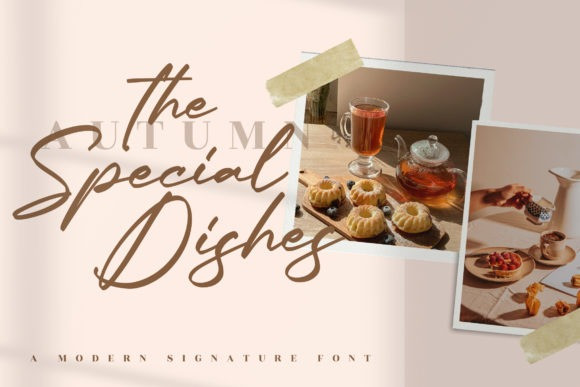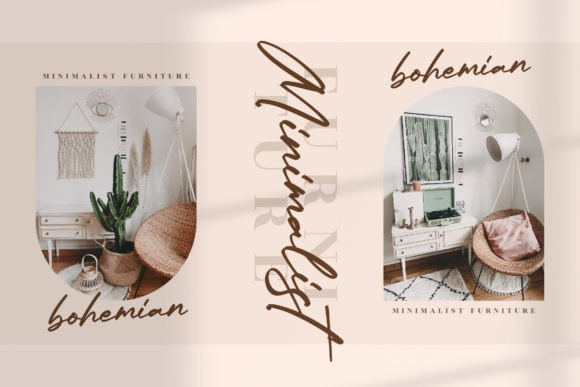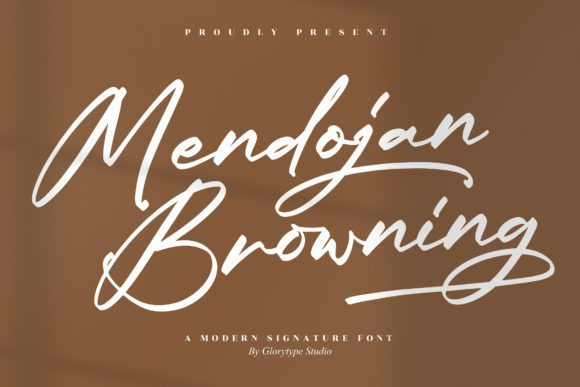
Mendoja Browning Font
Mendoja Browning Font – Modern Signature Font is suitable for any projects such as logos, branding projects, homeware designs, product packaging, mugs, quotes, posters, shopping bags, t-shirts, book covers, name cards, invitation cards, greeting cards, labels, photography, watermark, special events, and all your other lovely projects that need a beautiful script taste.